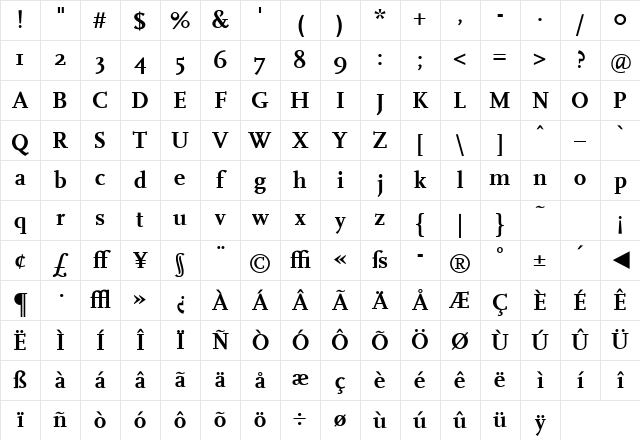
Cscala is a composed and adaptable typeface that performs quietly and consistently across a wide range of design contexts. Its bold stroke weight gives it real presence on the page.